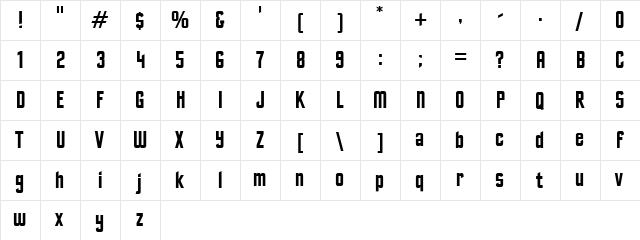
EXCELSIOR SANS Regular Font Preview
EXCELSIOR SANS Regular
Design Context for EXCELSIOR SANS Typeface
EXCELSIOR SANS offers clean, dependable letterforms without strong stylistic allegiance, making it a practical choice for designers who need flexibility.
Pro Tip: Use EXCELSIOR SANS in both headline and body roles to test its range before committing to a single application.